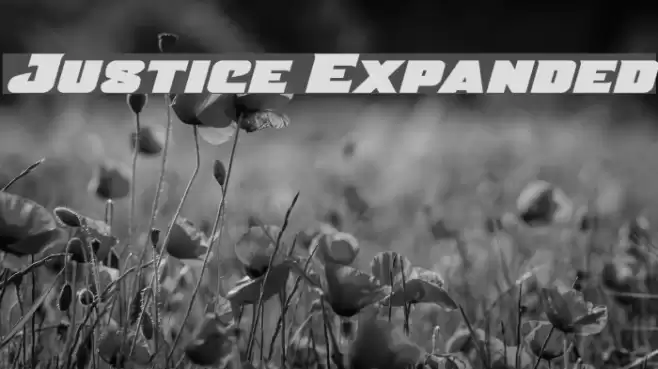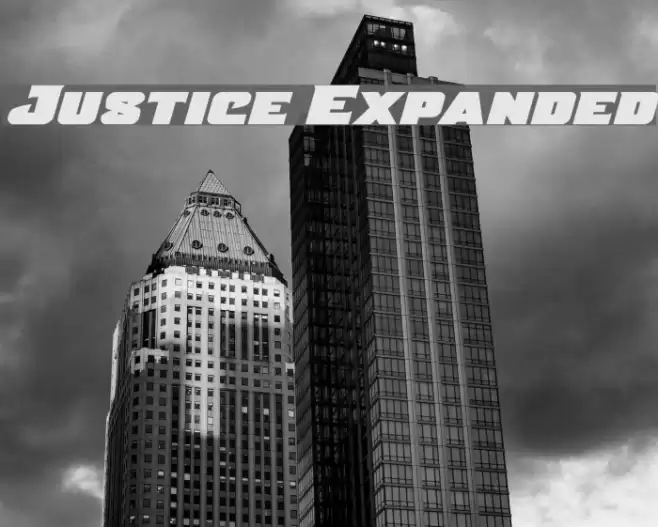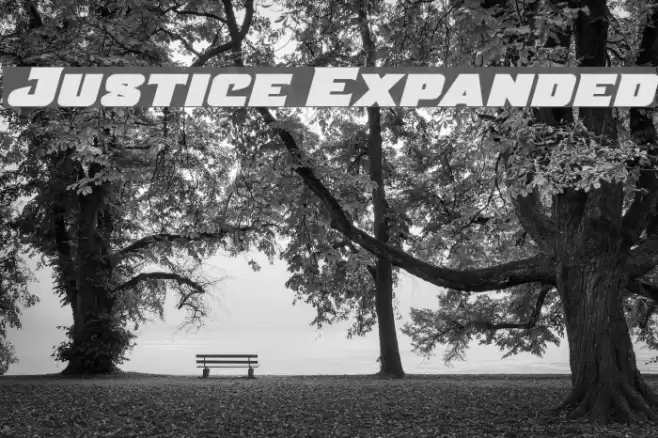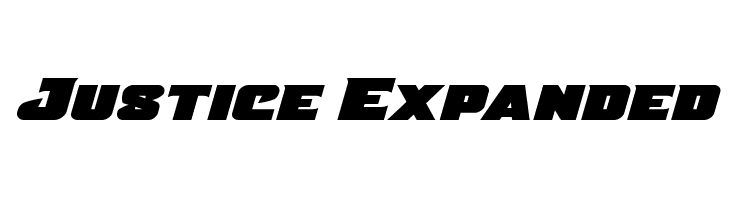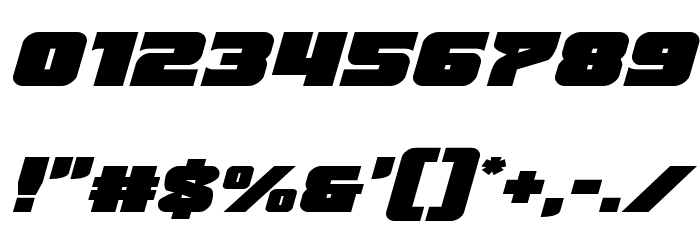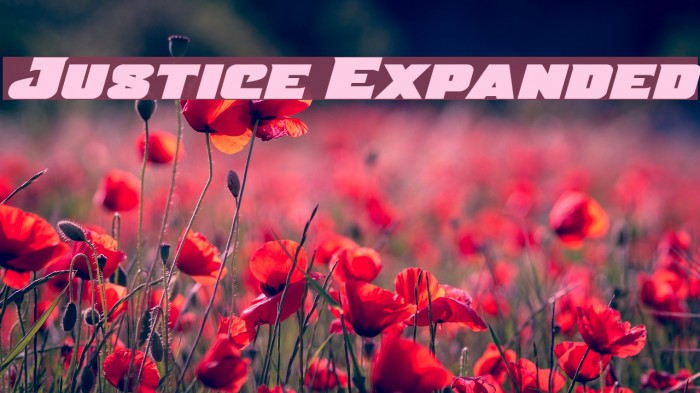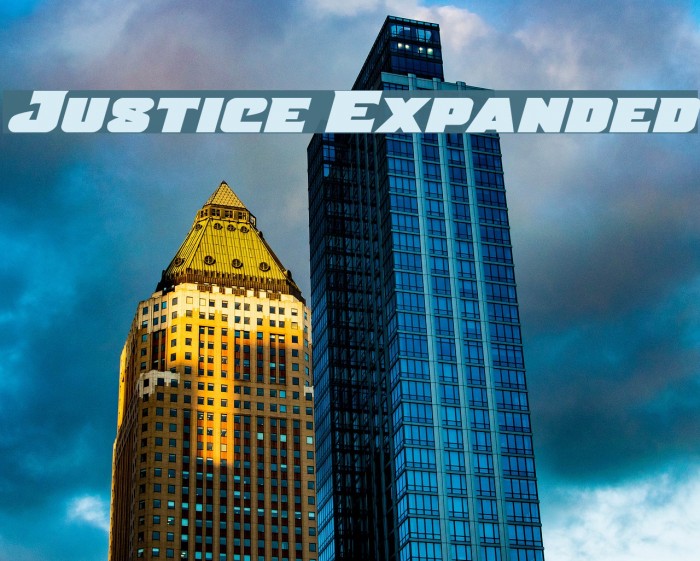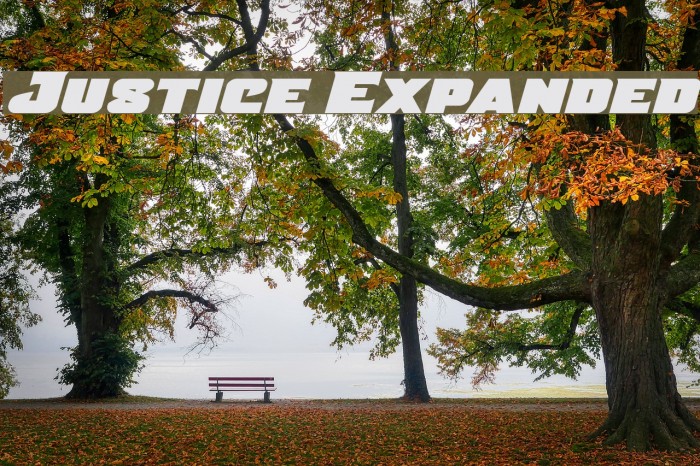
Justice Expanded Font
Justice Expanded Description
This font exhibits a bold and dynamic style with a strong presence. The characters are designed with a forward-leaning slant, giving a sense of motion and urgency. The strokes are thick and consistent, providing a robust and impactful appearance. The angular cuts and sharp edges add a modern and edgy feel, making it suitable for attention-grabbing designs. The spacing between characters is tight, enhancing the compact and cohesive look of the text. This font is ideal for projects that require a bold statement, such as sports branding, action-themed posters, or dynamic headlines.
A bold, dynamic font with angular cuts and a forward-leaning slant from Uncategorized fonts.
- Proposed Projects: Ideal for sports branding, action-themed posters, dynamic headlines, and impactful logos.
- Character Spacing: Tight